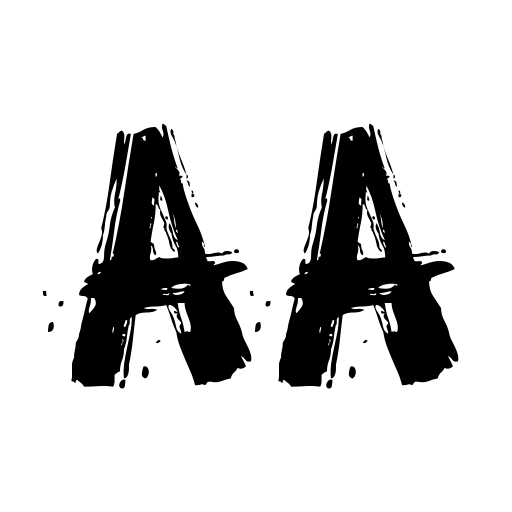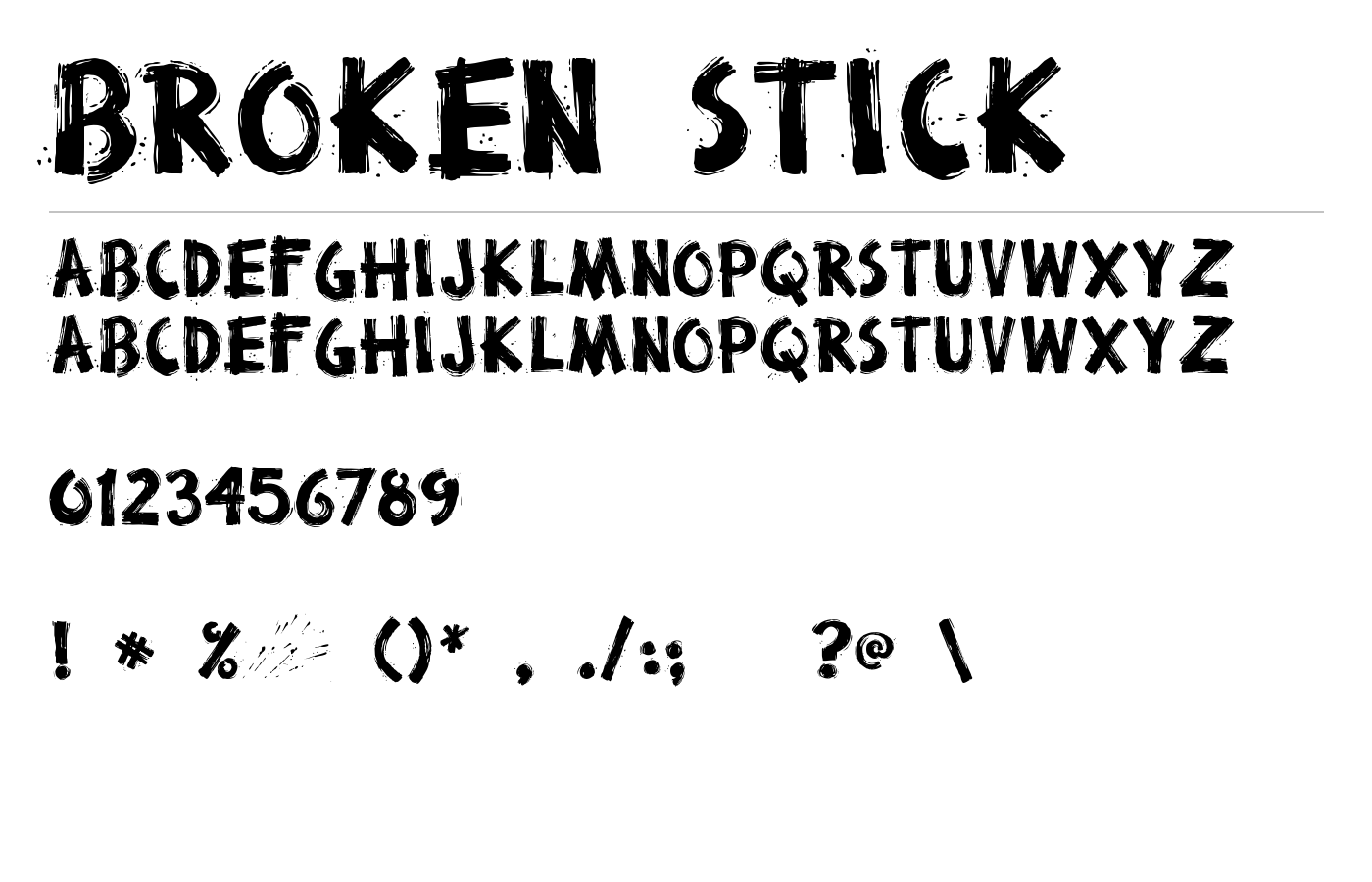
Broken Stick is a bold, distressed sans serif font that features a rough, hand-painted texture with uneven strokes and irregular edges, giving it a raw, energetic feel. Its uppercase-only style, combined with a slightly condensed width and medium-high contrast between thick and thin strokes, makes it ideal for bold headlines, posters, and designs aiming for an edgy, creative, or grungy vibe. This font works well in contexts where a strong, artistic impression is needed, such as music branding, streetwear, or urban-themed projects.
Broken Stick Font
About Broken Stick Font
| Font family | Broken Stick Font |
| Designer | Matt Tapson |